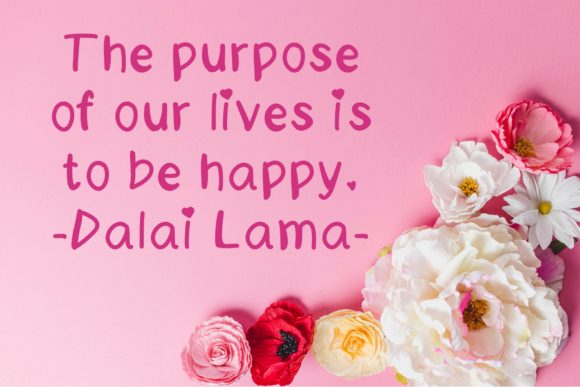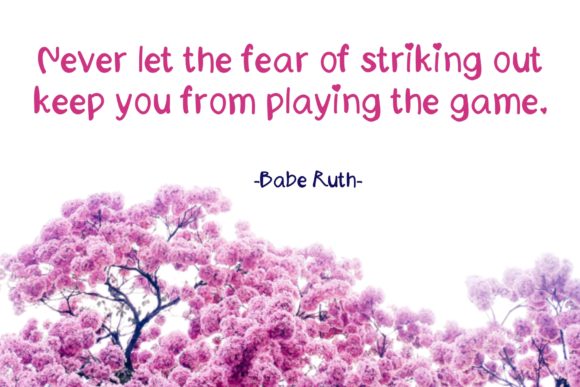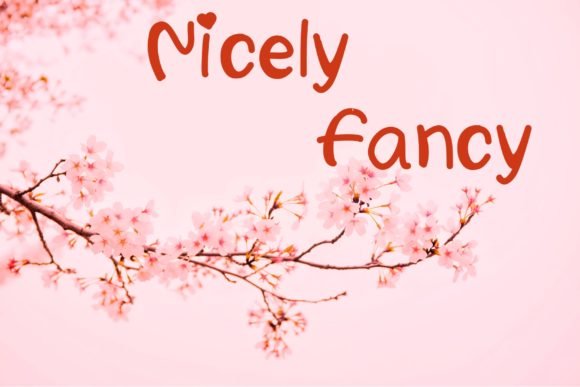
Introduction to Nicely Fancy Font
Nicely Fancy is a sweet and friendly handwritten font.
Key Features of Nicely Fancy Font
Why Choose Nicely Fancy Font?
Nicely Fancy Font offers exceptional quality and versatility, making it a valuable addition to your design toolkit. Whether you’re creating for personal projects or commercial use, Nicely Fancy Font delivers professional results.